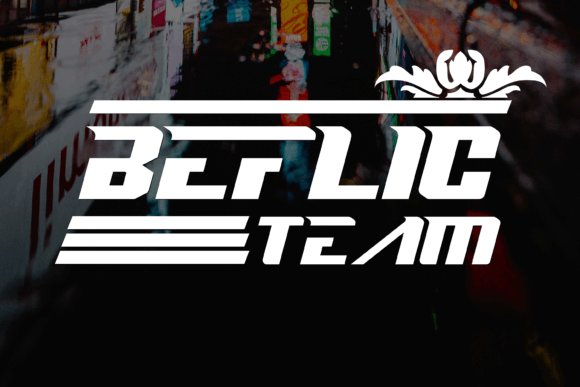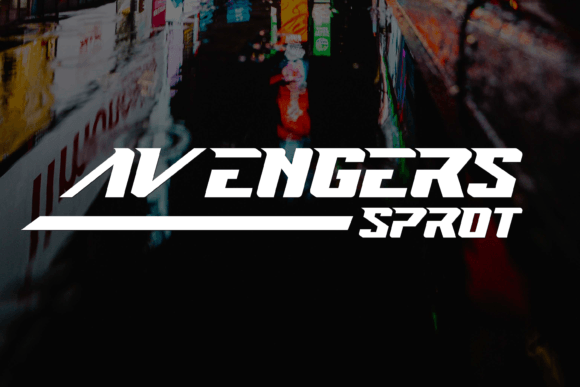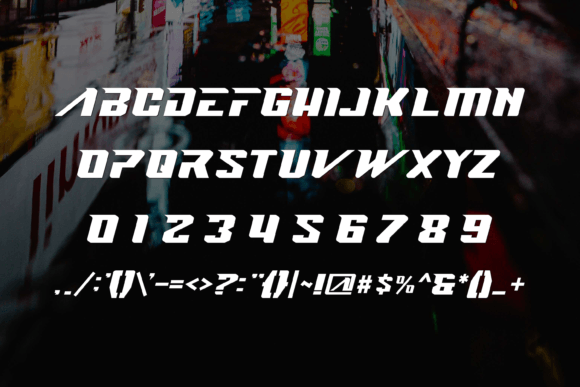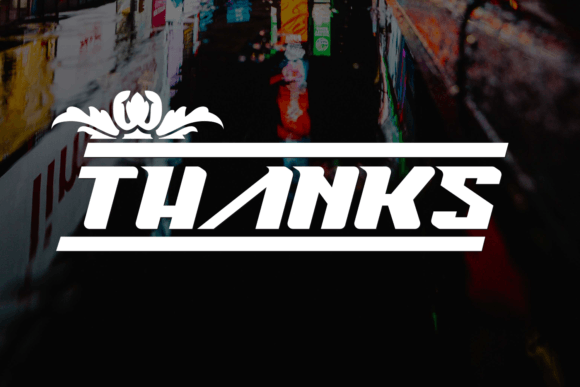
Pristic Font
PRISTIC FONT SPECIMEN
Pristic is a slab serif font with a charming touch of style. It is suitable for those who want a design that displays an interesting side but is still relevant for a modern look.